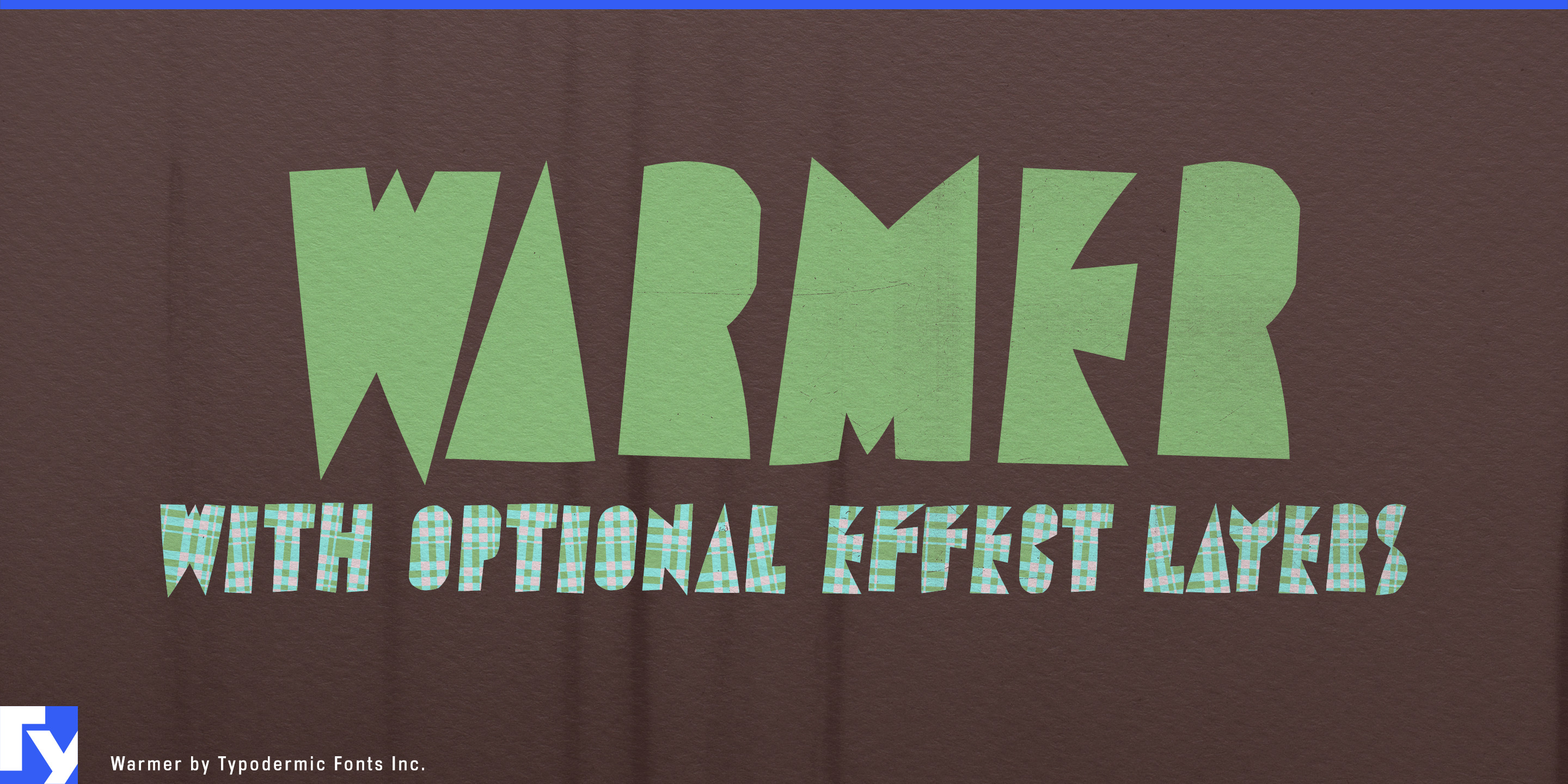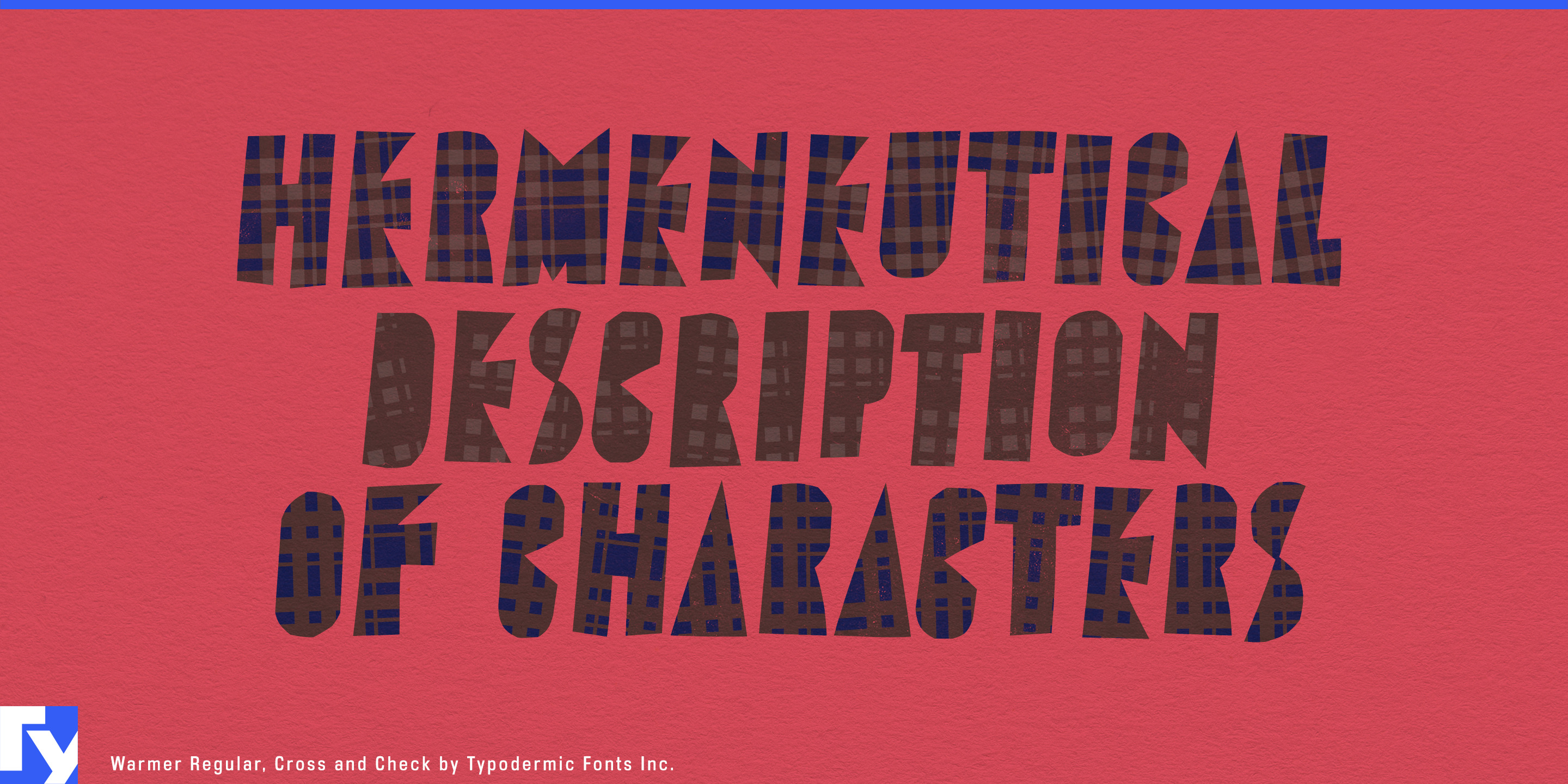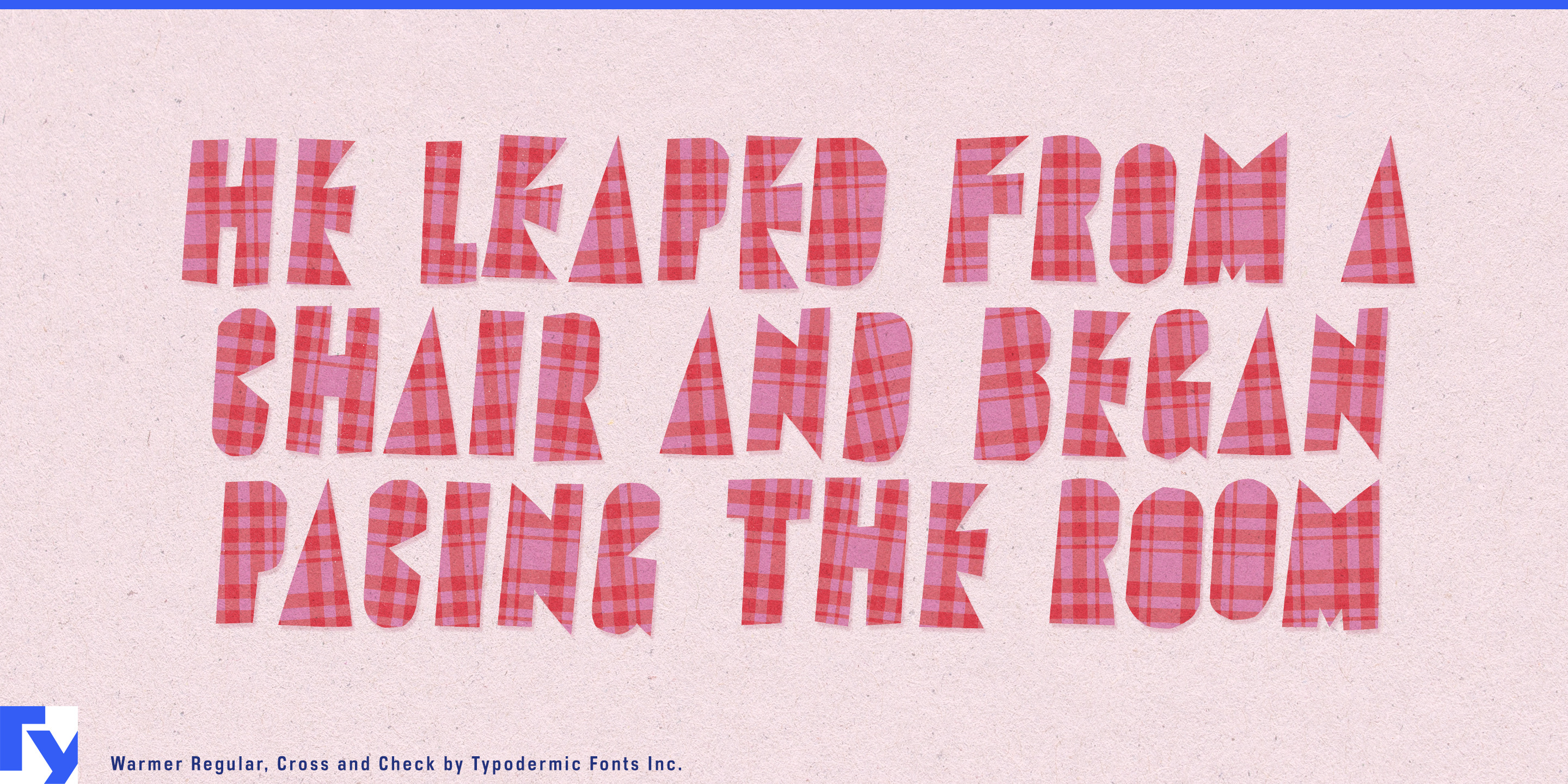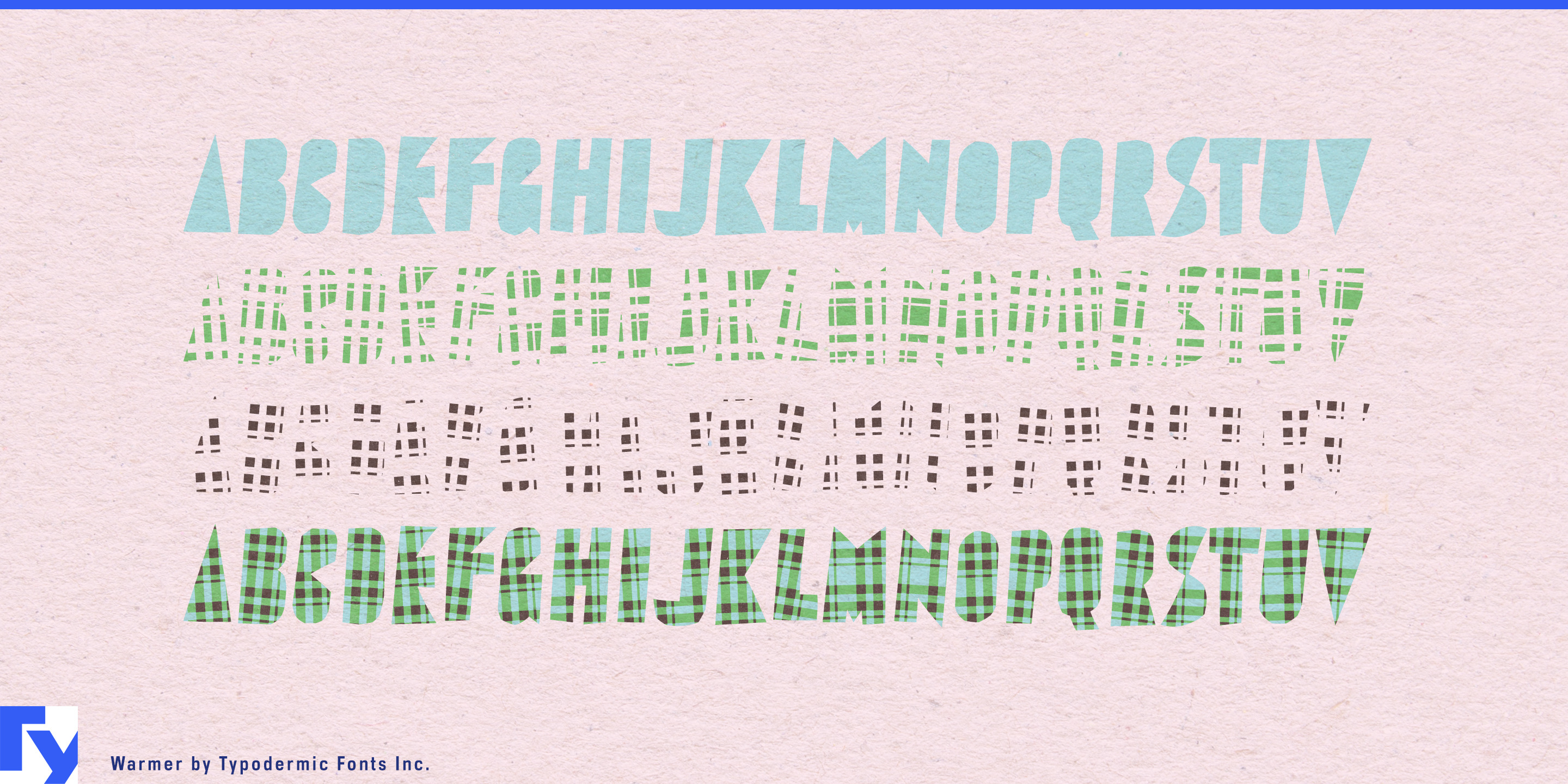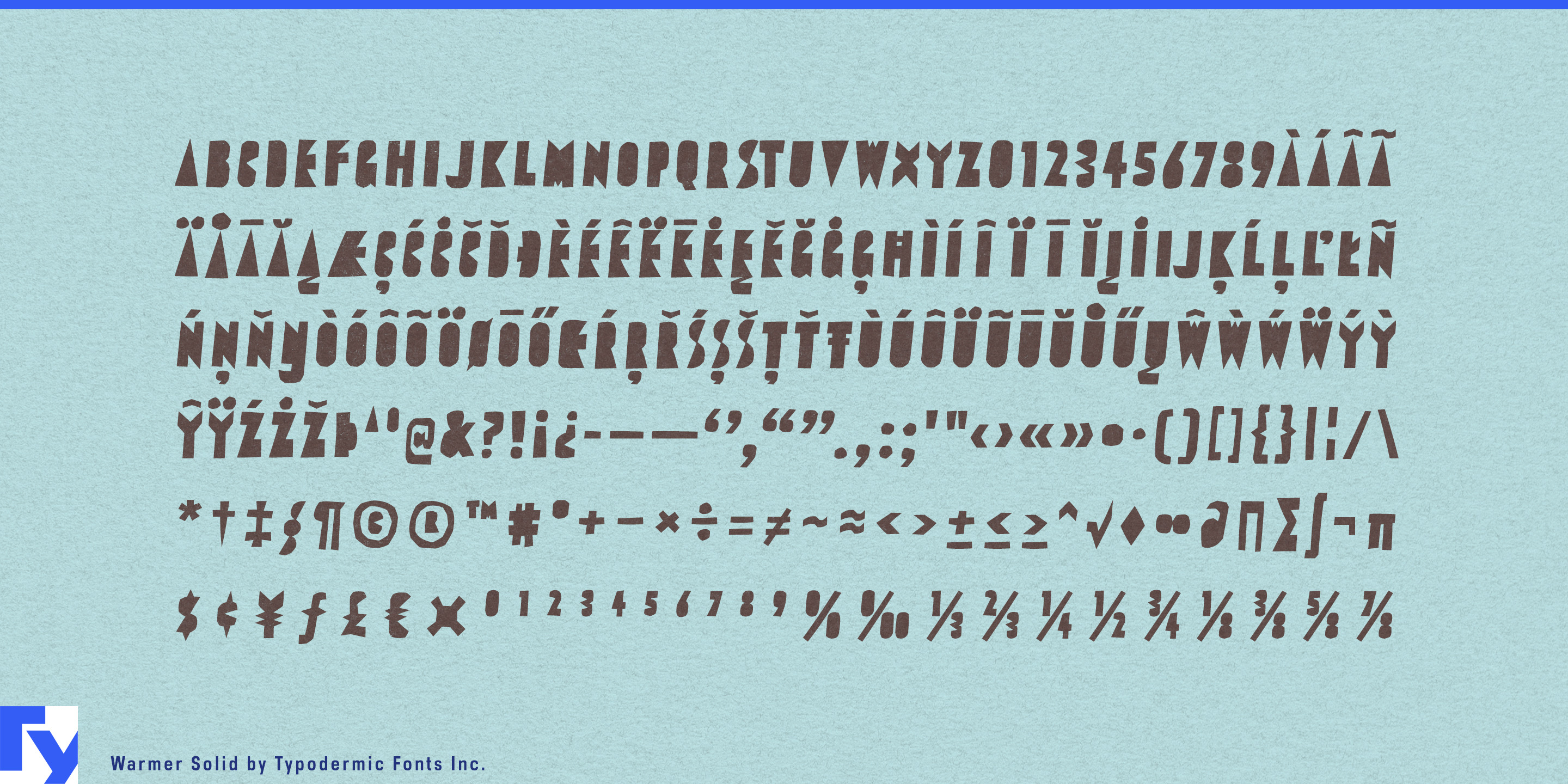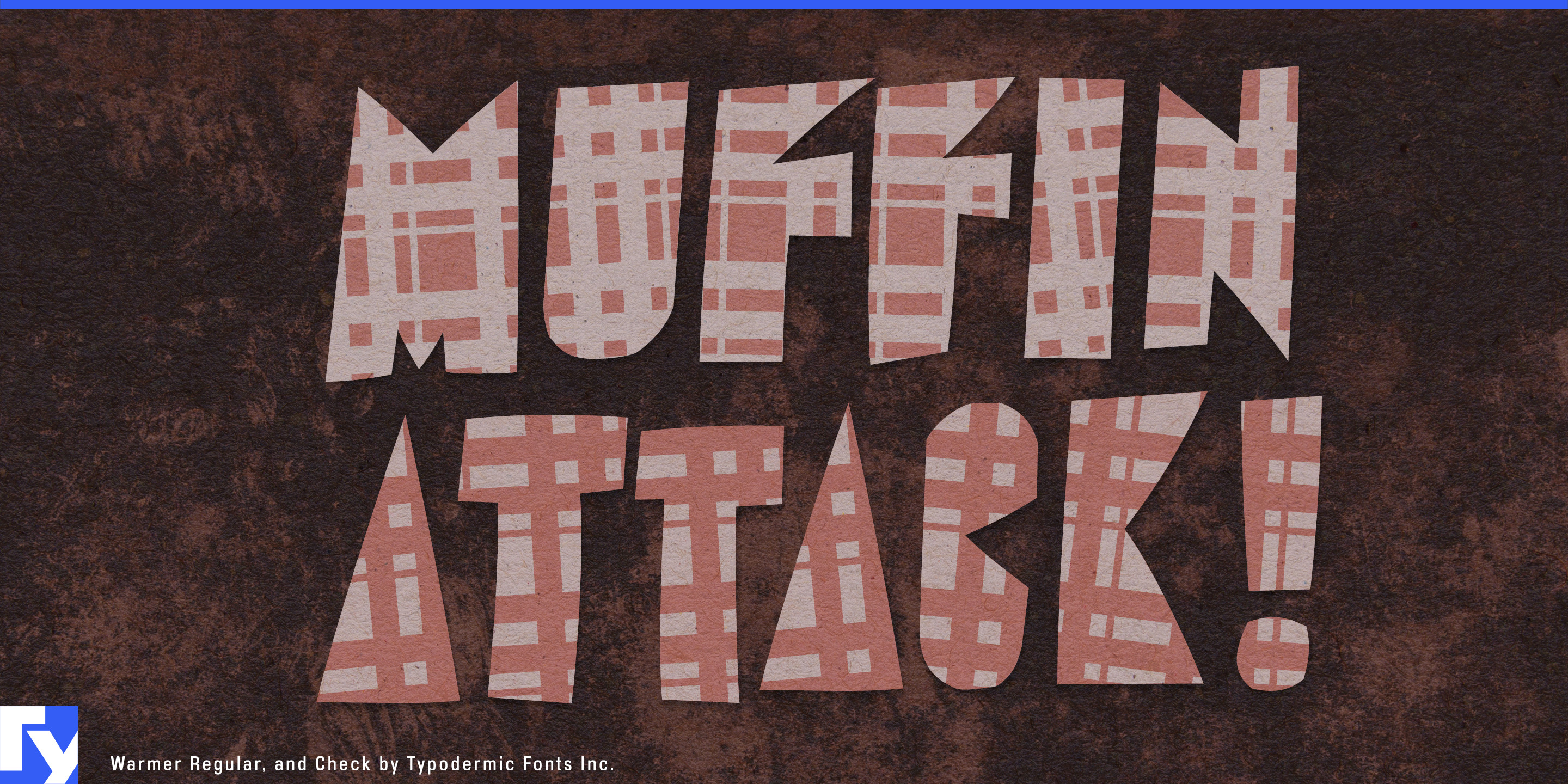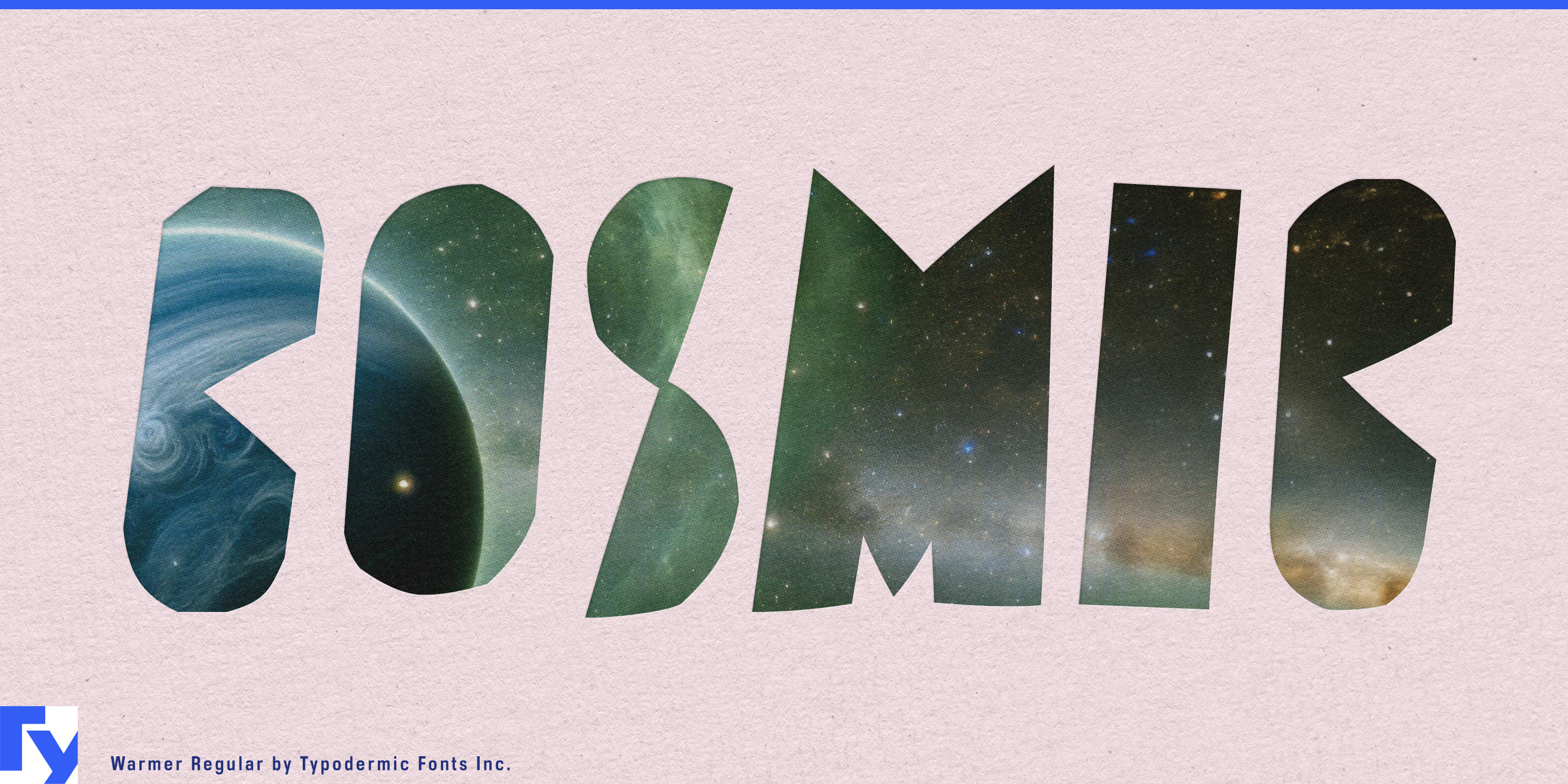
Warmer
Warmer brings bold, counterless letterforms with a playful, cut-paper edge. Its compact shapes hit with instant impact, making it a natural for headlines, posters, and packaging that need to stand out without getting fussy.
You can run Warmer in its solid style for quick, no-nonsense use—drop it into your layout and you’re done. But if you’re up for a little extra flair, Warmer also comes with two optional plaid effect layers. These aren’t just flat textures slapped on top; each character has its own unique plaid angle, something you can’t fake with a generic overlay. Stack the layers, experiment with colors, and you’ve got a retro-fabric look that’s full of depth and personality. Whether you stick with the solid style or dive into plaid layering, Warmer stays readable, distinctive, and fun. It supports a wide range of Latin-based languages, so your message comes through loud and clear—no matter where you’re sending it.
Bold. Handmade. Versatile. Warmer is ready to work straight out of the box, and if you want to turn up the charm, the plaid’s just waiting in the wings.